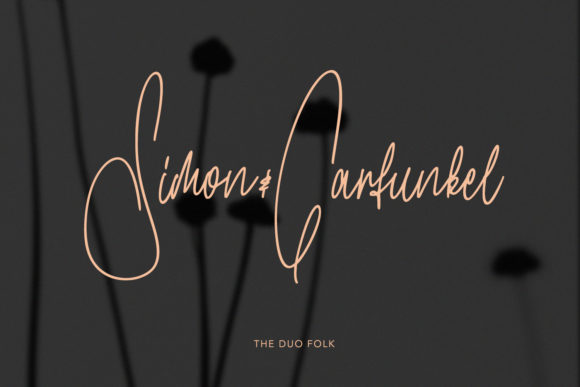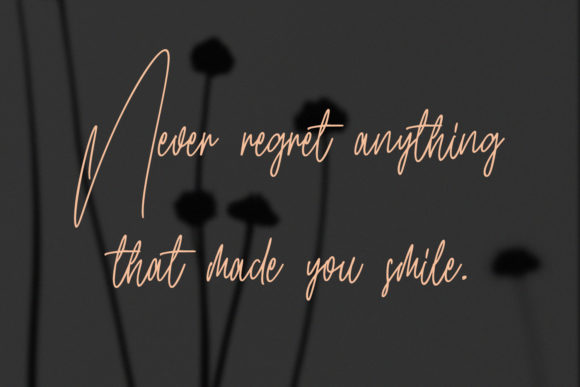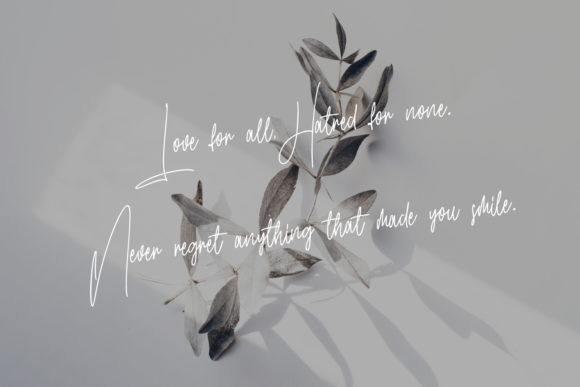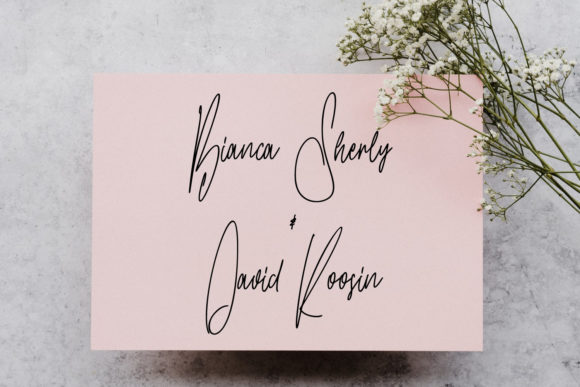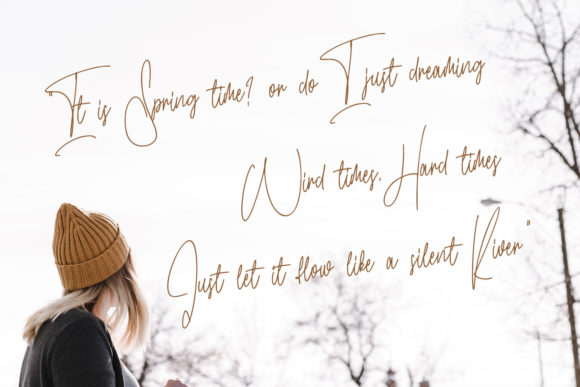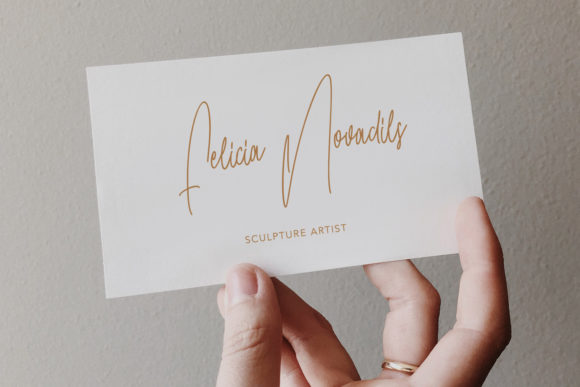
The Designer’s Delight: Gilly Fleurs Font
I’ll never forget the time I was working on a luxury branding project for a high-end fashion client. I had spent hours perfecting the logo design, but something was missing. The design felt flat, and I couldn’t quite put my finger on what it needed. That’s when I stumbled upon the Gilly Fleurs font. It was like a breath of fresh air – the elegant, handwritten curves and lines instantly elevated the design to new heights. I was hooked!
- ✨ Versatility: Gilly Fleurs is incredibly versatile, making it perfect for a wide range of design projects, from luxury branding to wedding invitations and more.
- ✅ Elegant and Refined: The font’s elegant, handwritten style adds a touch of sophistication to any design.
- 💫 Legibility: Despite its ornate nature, Gilly Fleurs remains surprisingly legible, even at smaller font sizes.
The Not-So-Good Stuff
- 🤔 Limited Use in Body Text: While Gilly Fleurs excels in headlines and titles, it may not be the best choice for longer body text due to its ornate nature.
- ⚠️ Kerning Issues: As with any font, some users may experience kerning issues, particularly when using certain character combinations.
The Story Behind Gilly Fleurs: A Designer Inspiration
Gilly Fleurs was created by a talented type designer who drew inspiration from the world of luxury fashion and high-end jewelry. The font’s elegant, handwritten curves and lines were designed to evoke the feeling of sophistication and refinement. Whether you’re working on a luxury branding project or a wedding invitation, Gilly Fleurs is the perfect choice.
| What makes Gilly Fleurs so special? | Gilly Fleurs is a unique and elegant handwritten font that adds a touch of luxury to any design project. |
| Is Gilly Fleurs suitable for body text? | While Gilly Fleurs is perfect for headlines and titles, it may not be the best choice for longer body text due to its ornate nature. |
| Does Gilly Fleurs support OpenType features? | Yes, Gilly Fleurs supports OpenType features, including glyphs and stylistic alternates. |